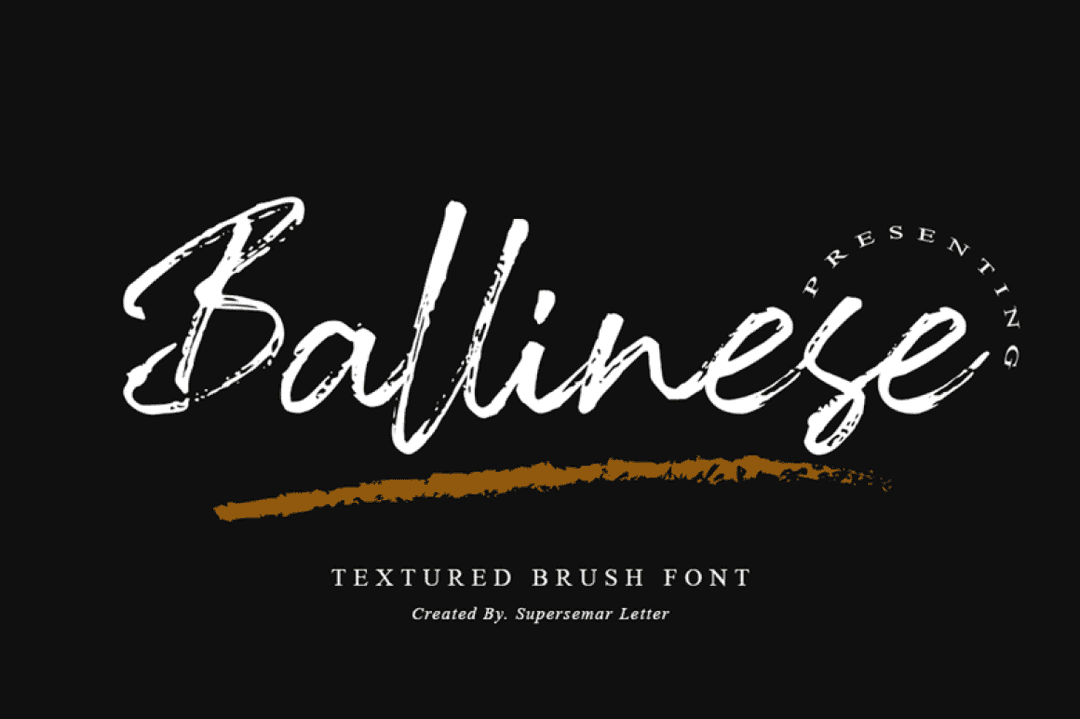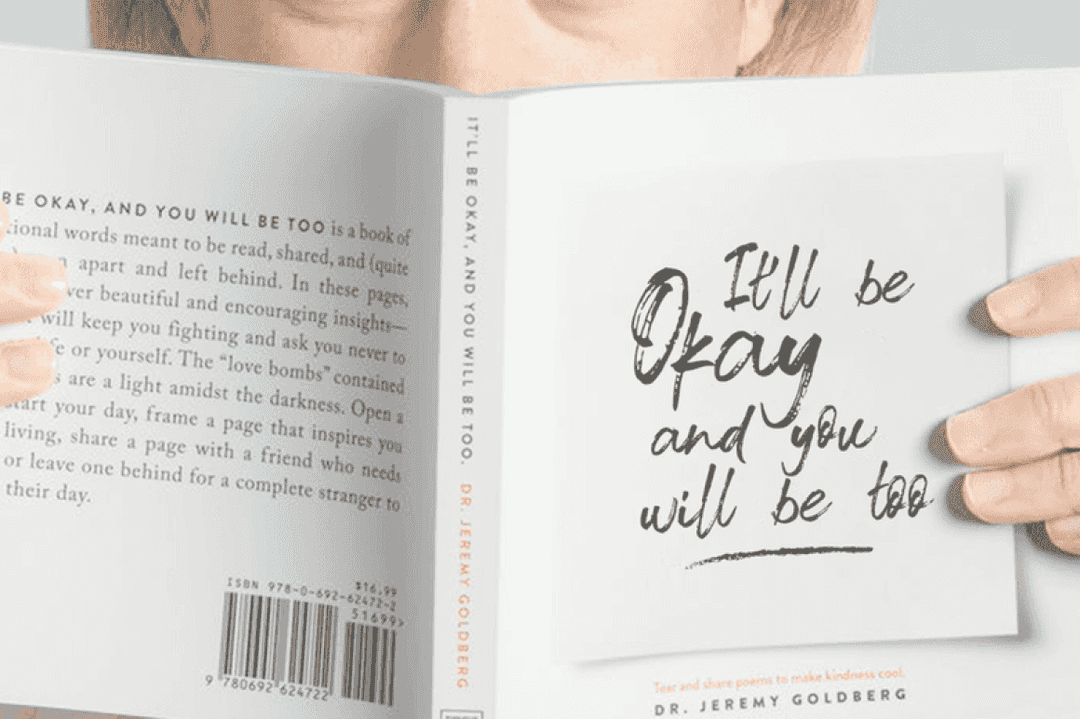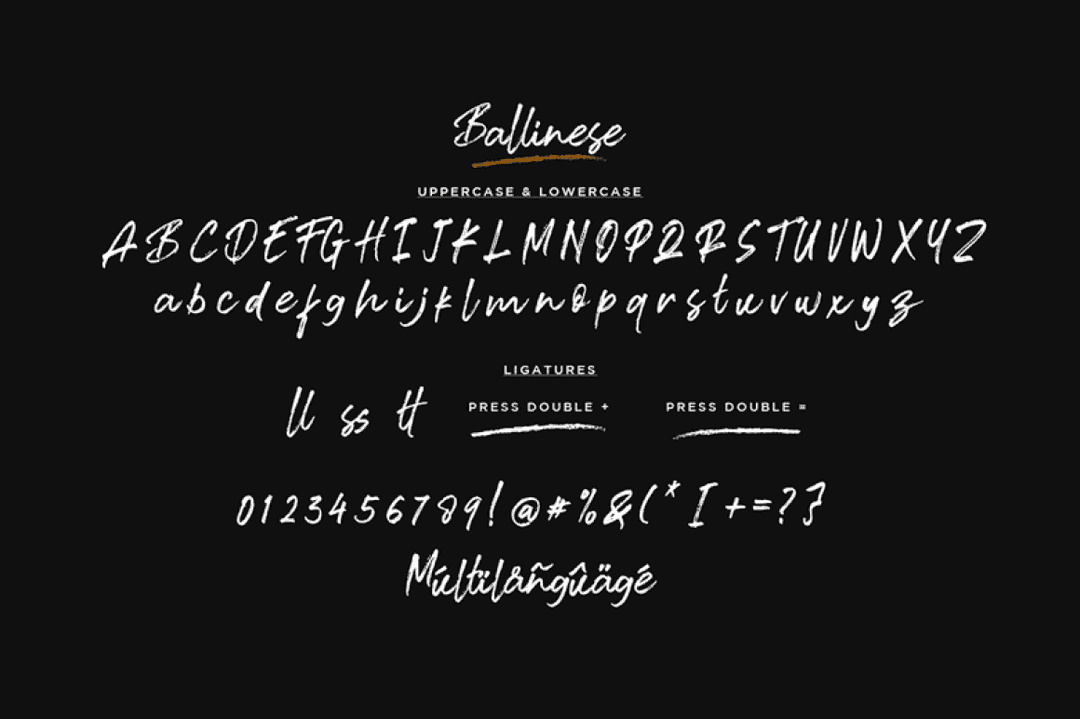
Discover Ballinese Font, part of the Brush collection—a versatile and unique font perfect for adding a personal touch to your projects. Download it for free and enjoy crafting designs with style, from invitations to social media posts. This font is available exclusively for personal use, giving you the freedom to create without limits. Unlock your creativity with Ballinese Font today!
Ballineseis an exciting brush with textured script-style fonts in both Uppercase and Lowercase that feel balanced and comfortable to use. Create special characters using double plus (plus) or equal sign (=), to form ligatures with special characters or add swashes by pressing double plus (+) or equal sign (=), thus making the letter design look stunning; perfect for posters, headlines, logos packaging T-shirts etc.